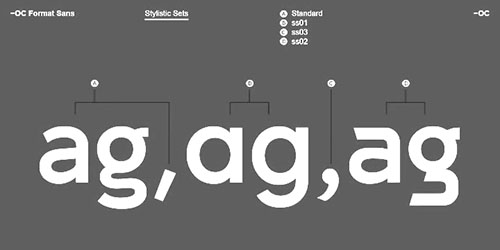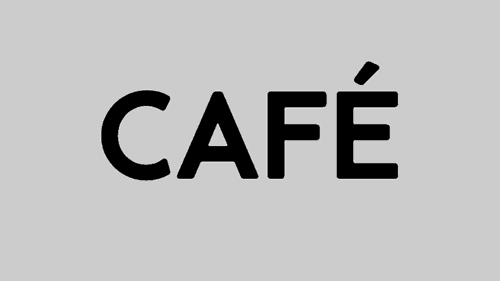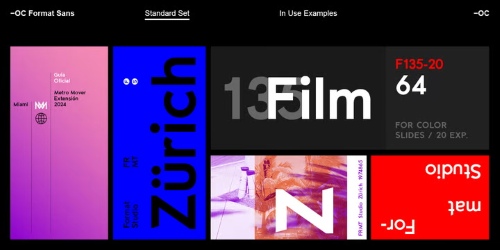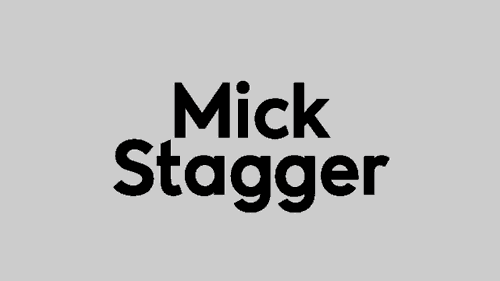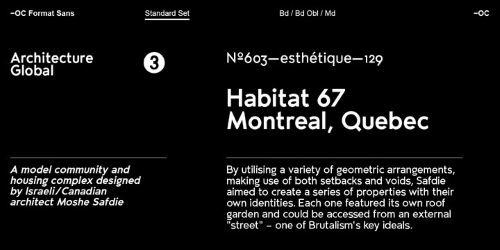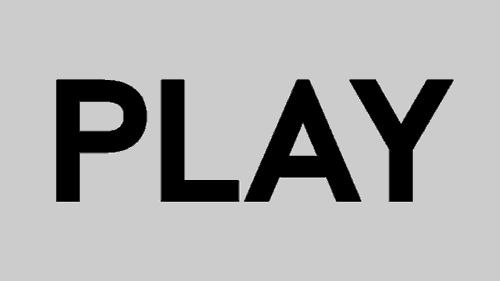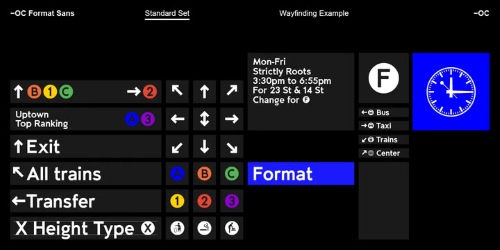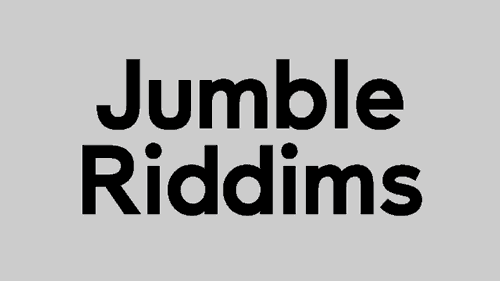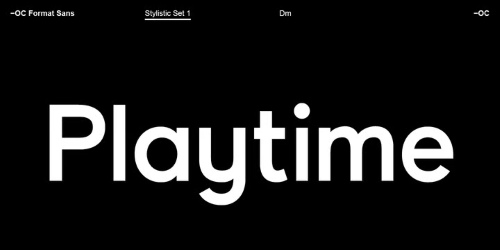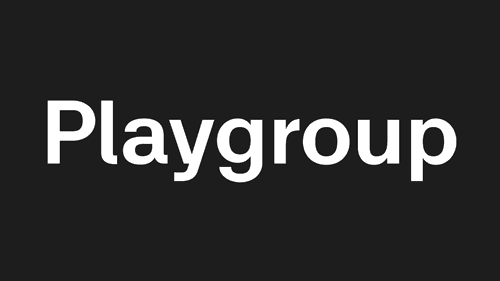
OC Format Sans v1.3 - 24 Styles Font Family
- OC Format Sans is the third incarnation of this geometric grotesk sans serif which fuses the style of Futura with the rhythm and proportions of Akzidenz. It comes in two styles, standard and a new Print family where crisp sharp edges have been made blunt in reference to the ink spread that occurs when printing on uncoated paper stock. It can give digital media a softer more approachable analog aesthetic. Typical of both grotesk and geometric styles the design has an even weight with minimal stroke contrast and the slanted form is an oblique rather than a true italic. The default double-story a and g give an academic touch, the single story versions of Set 1 are more friendly and approachable while Set 2 changes the look into something more scientific. Made with tireless attention to detail and kerning it's perfect for logotypes and extensive text, supports multiple languages and comes with a plethora of OpenType features including standard and discretionary ligatures, social icons, symbols, and multiple figure styles including roman numerals.